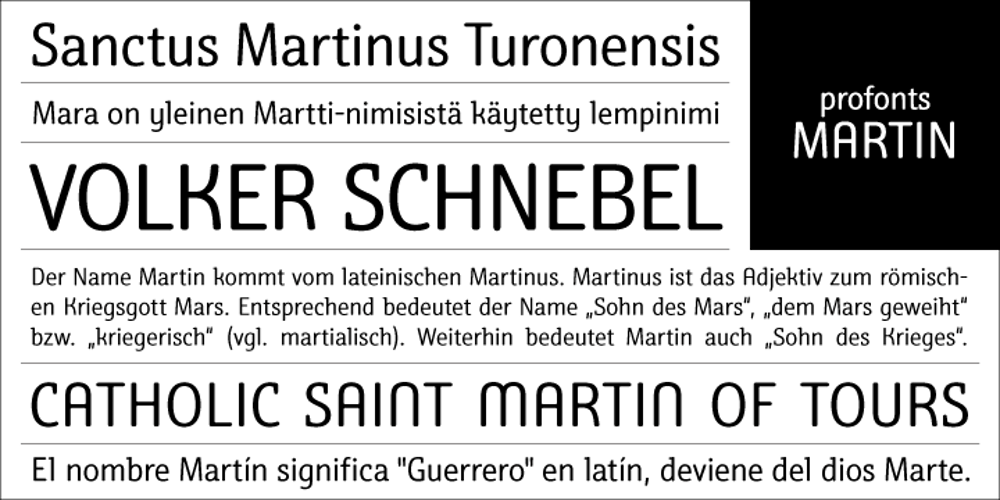
Martin Font Family was designed by Volker Schnebel and published by profonts. Martin contains 1 styles and family package options. Martin, a condensed semi-serif with rounded edges and friendly serifs, shows its charme best in short, pointed sentences, in headlines set in about 20 to 36 p. The playing with serifs in a condensed, very characteristic type design is attractive and the technical skill is convincing. More styles are planned. The idea was to try to apply a given design criteria (also see Volker Schnebel’s Marita and Manuel fonts) to every single character. In other words, start with a character and develop all of the others from it. This is quite easy for some characters but extremely difficult for others. This process generates creativity and the characters move away from the initial constructed sketch. Together in a typeface, the individual characters are now all of a piece and character.